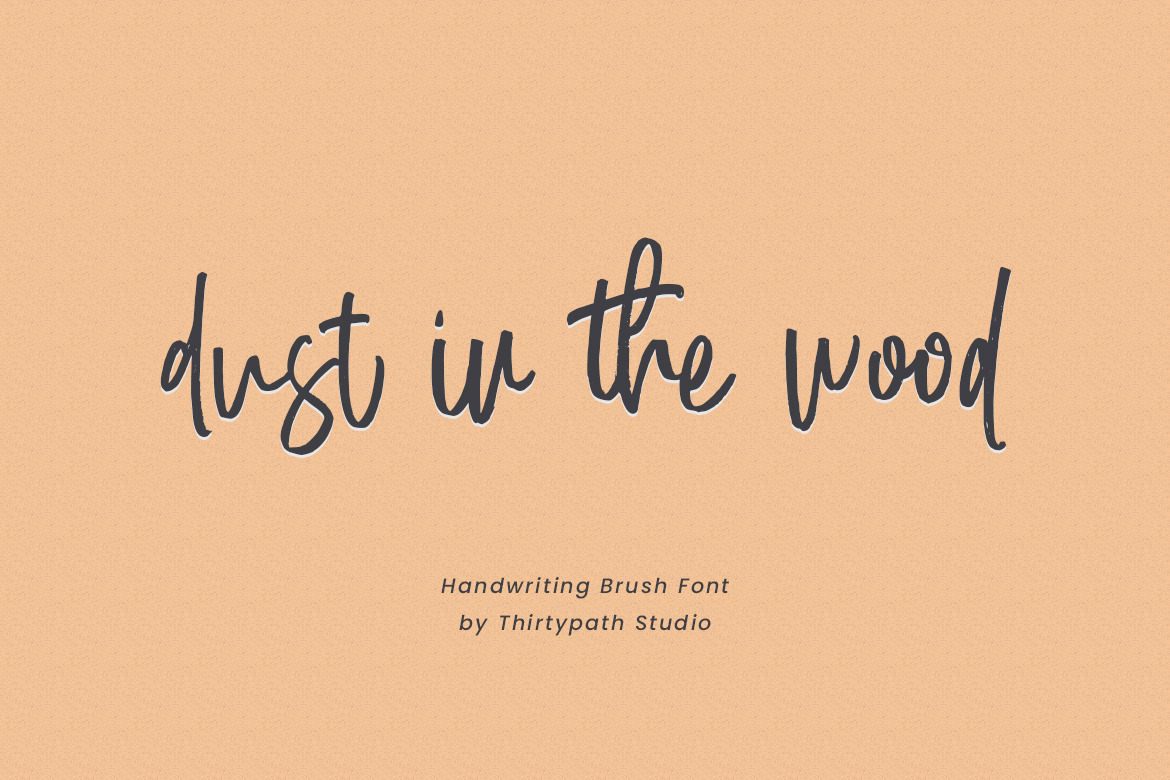
Dust in the wood font
Hi all...!! dust in the wood Font is a hand brush products. The style of handwriting and irregular but still elegant, and you will enjoy to use this font style.
dust in the wood Font is perfect for branding projects, homeware designs, product packaging - or simply as a stylish text overlay to any background image.